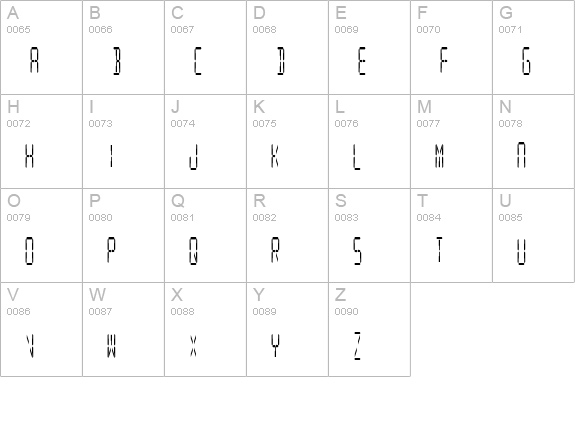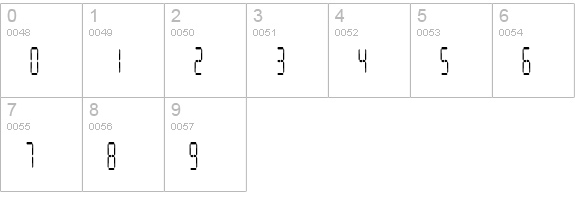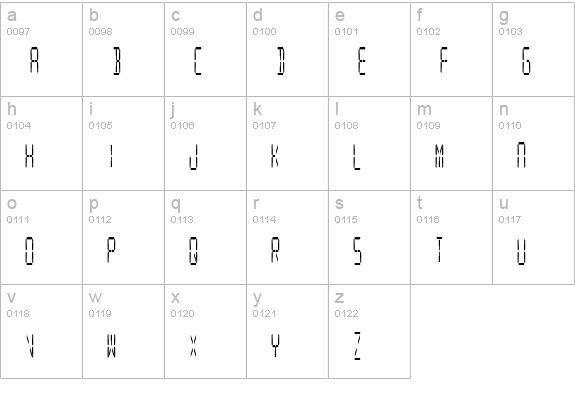
Digital Readout CondUpright font is a sleek and modern typeface that brings a futuristic touch to your designs. With its clean lines and sharp edges, this font is perfect for creating a high-tech look in your projects. The condensed style of the font allows for efficient use of space, making it ideal for headlines, titles, and other display purposes. What sets Digital Readout CondUpright font apart is that it is available for free download at FontsMarket.com. This means that you can easily access this stylish typeface without any cost, making it a valuable addition to your font collection. Whether you're working on a website, poster, or any other design project, Digital Readout CondUpright font is sure to make a bold statement and elevate your visuals to the next level. Download it today and unleash the power of this cutting-edge font in your creative endeavors.